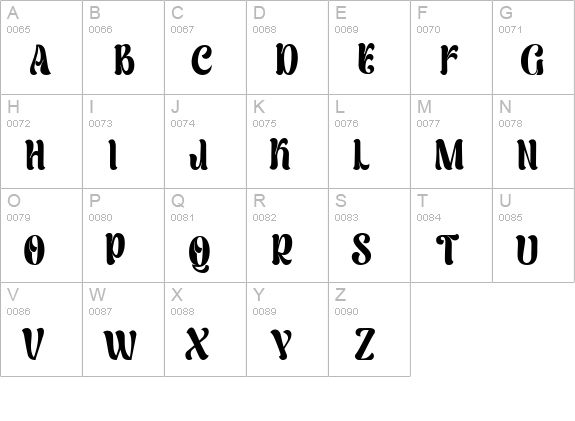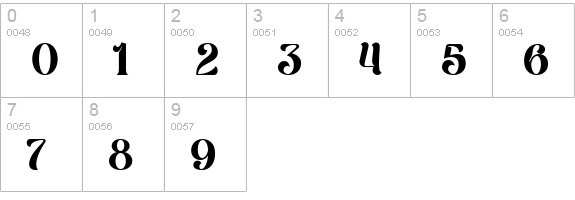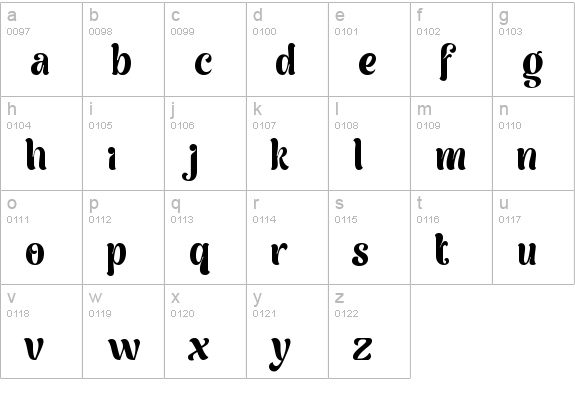
Milli is a demo font in the General > Serif category, designed by HydricDesign. It has been downloaded 235 times and is available for Windows, Mac and Linux.
Milli font is a modern and stylish typeface that exudes elegance and sophistication. Its sleek lines and smooth curves make it perfect for a wide range of design projects, from branding to editorial design. With its clean and contemporary look, Milli font adds a touch of sophistication to any project.